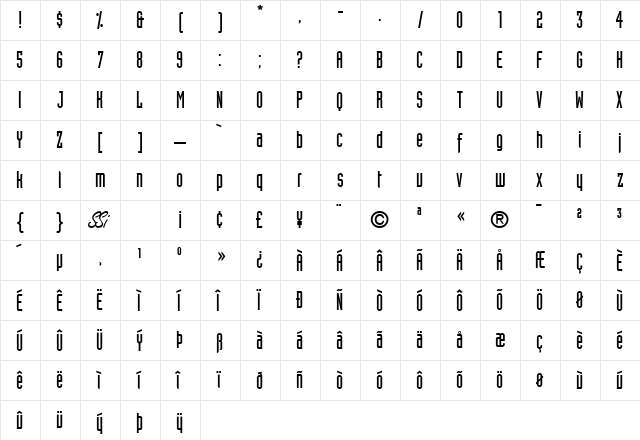
Assembly SSi Regular
Design Context for Assembly SSi Typeface
Assembly SSi is a composed and adaptable typeface that performs quietly and consistently across a wide range of design contexts.